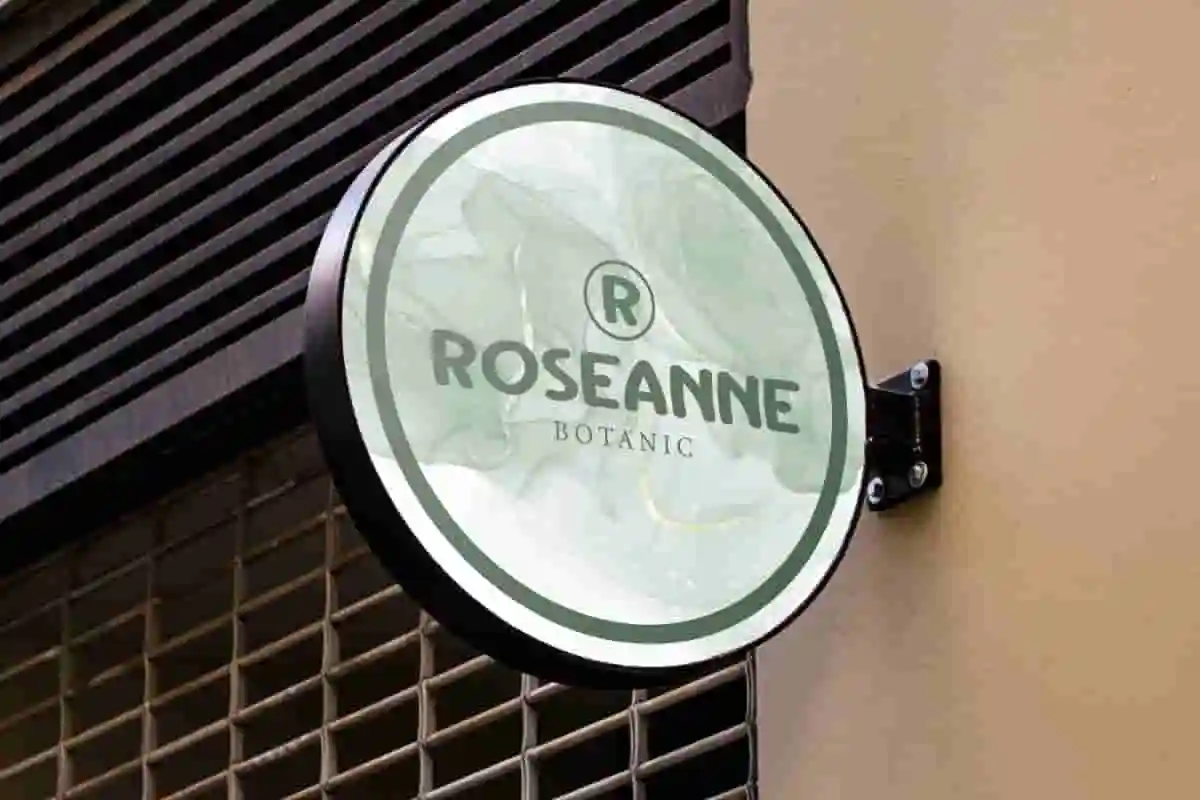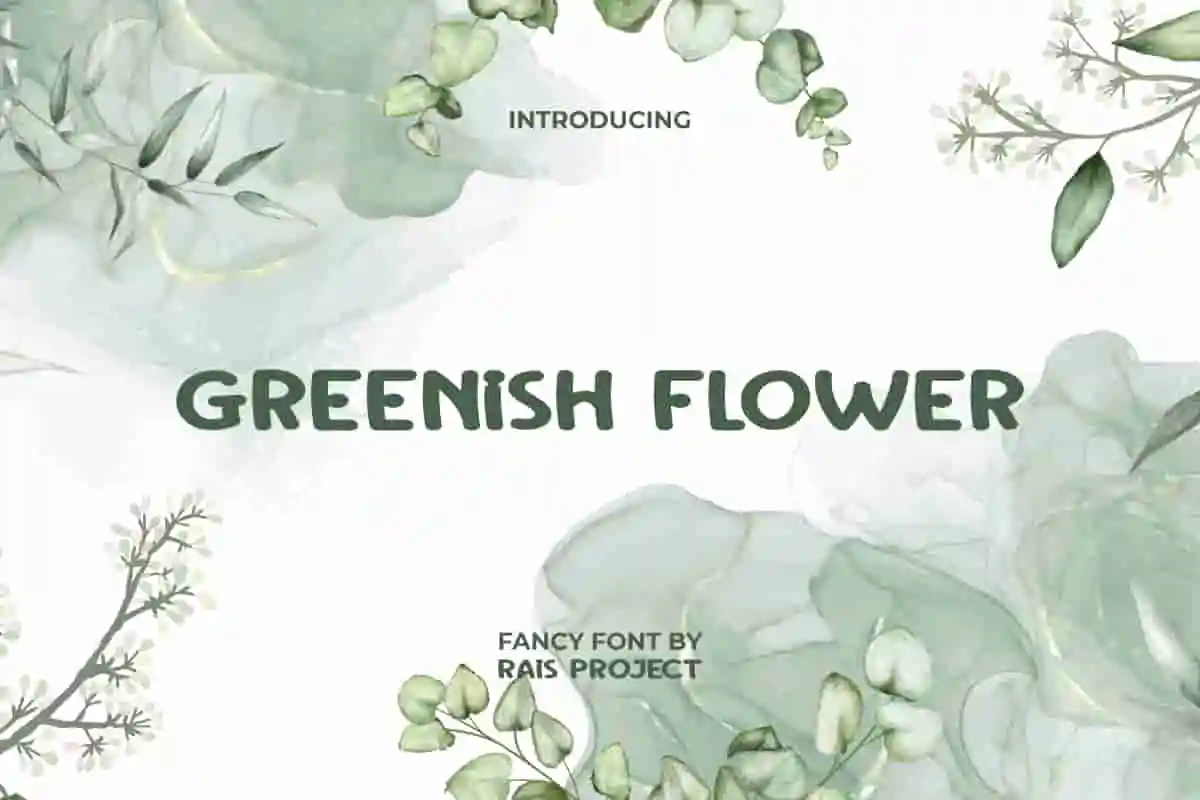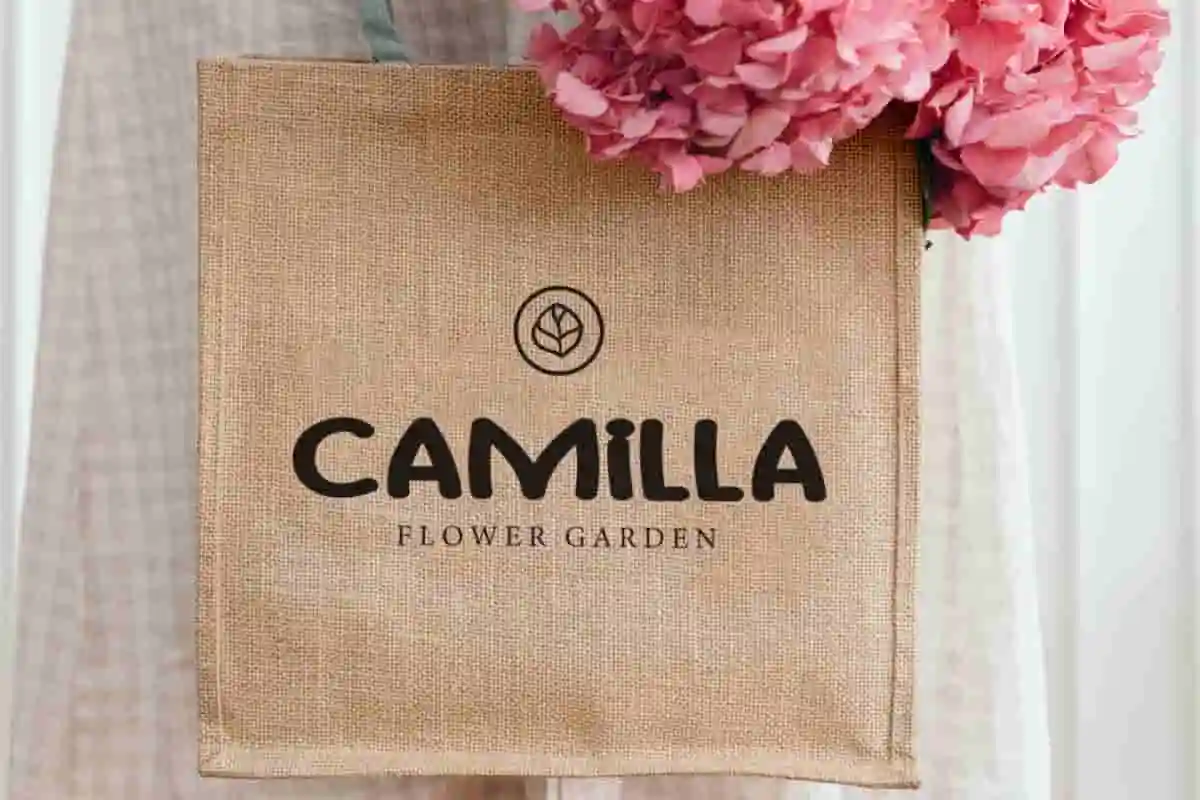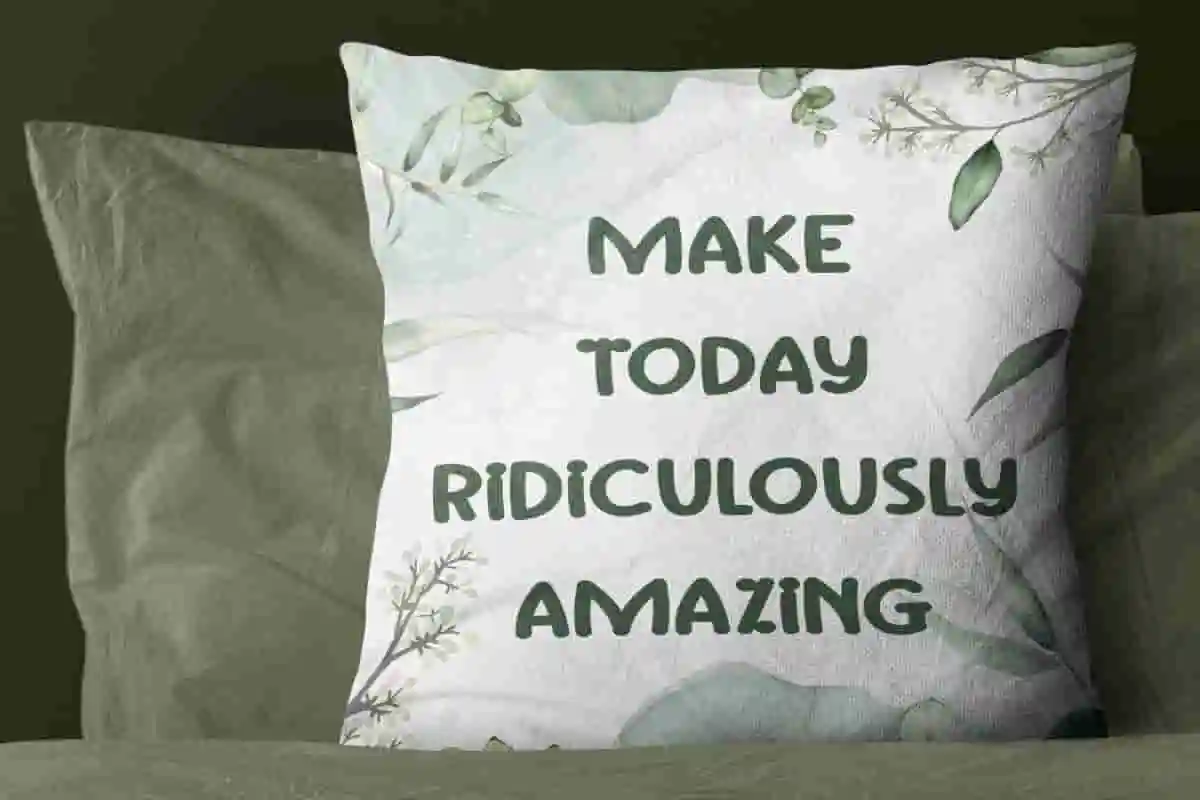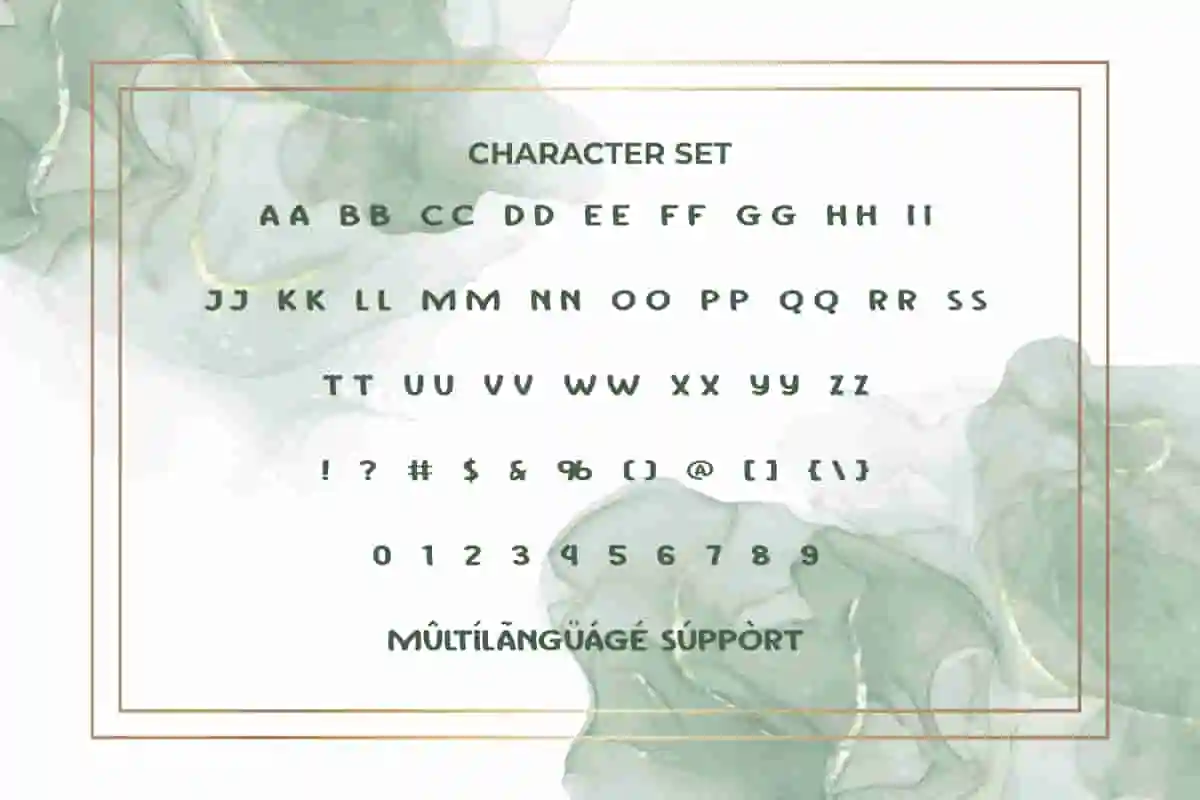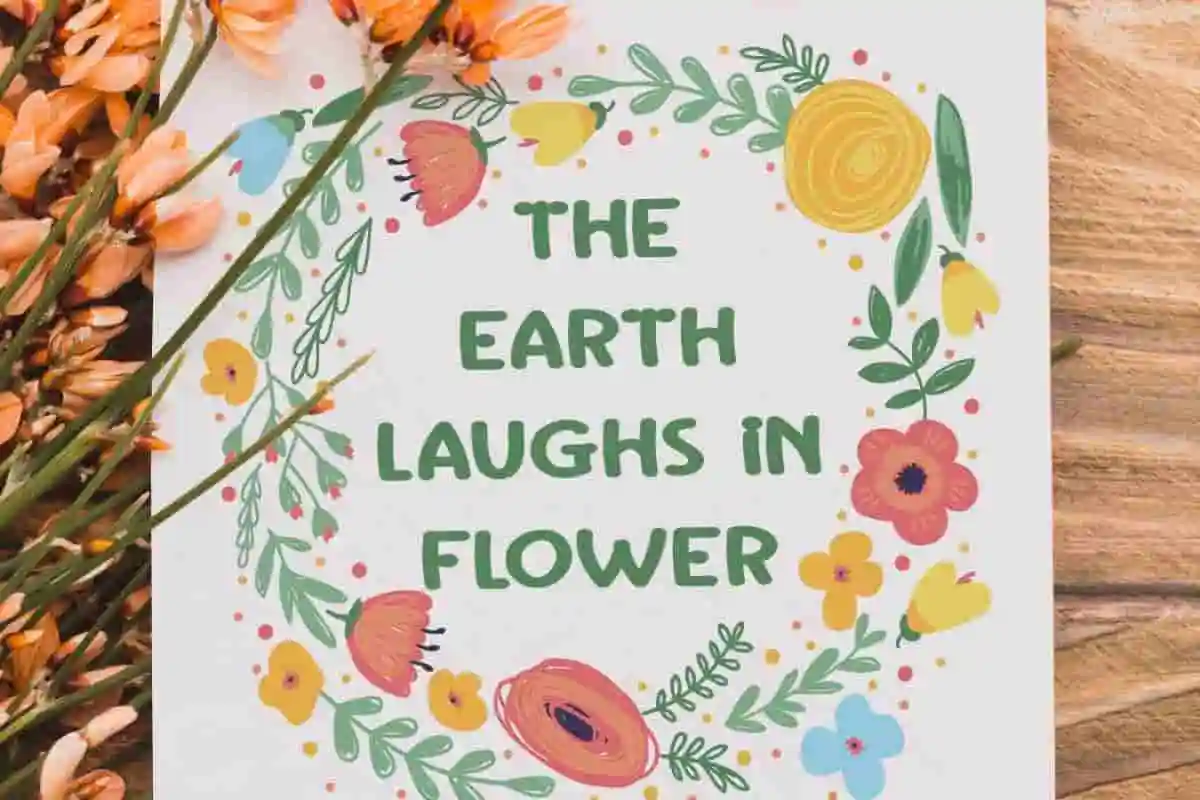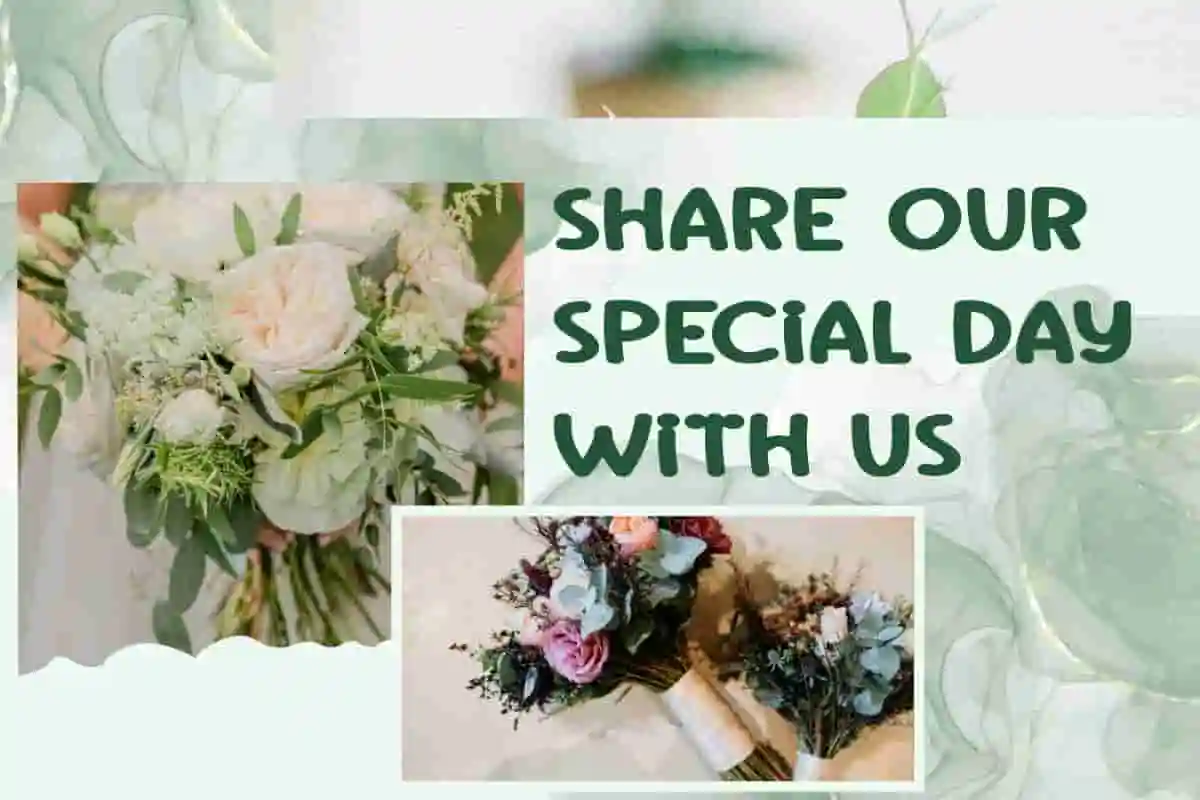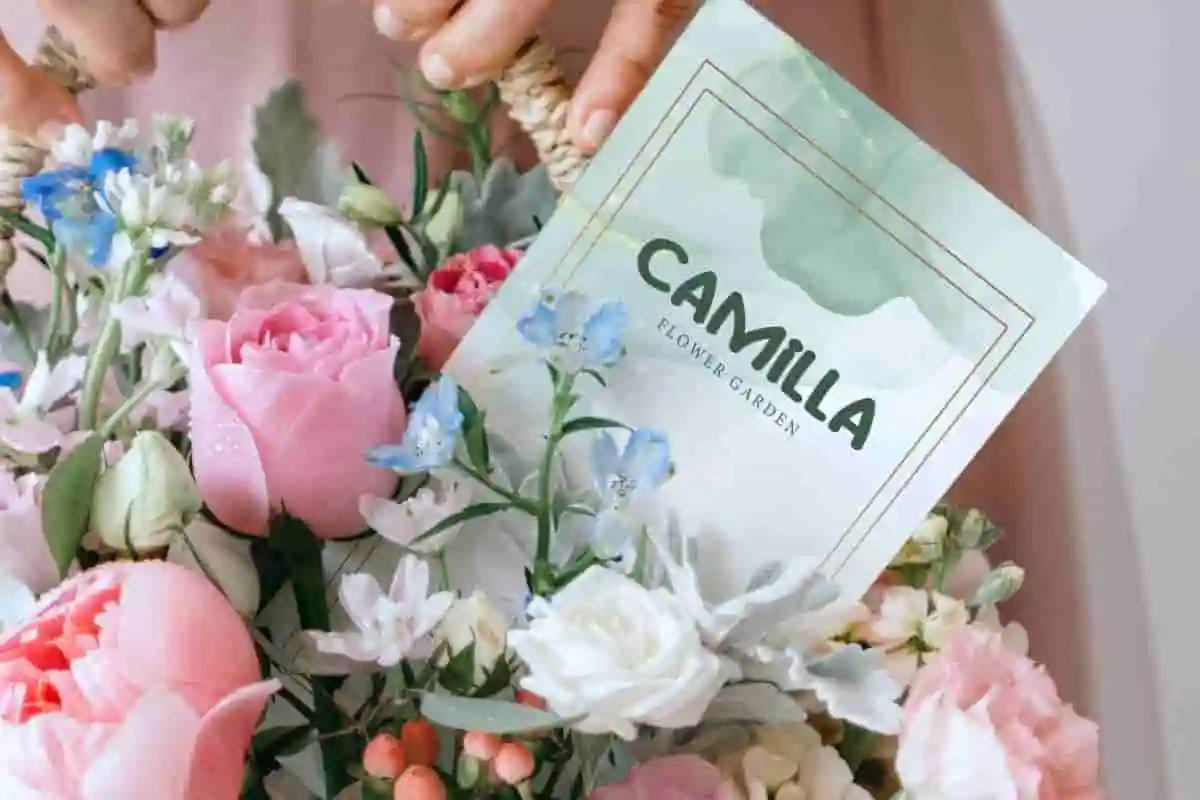
Greenish Flower Font
Greenish Flower Font is a cute display font, designed by Rais Project. Kids will love any designs using this font and will never get tired of looking at them. Use this font right now and see how adorable it is!
Greenish Flower Font is adorable cartoon display font. This type of font is usually found in many goods and animations for children to look attractive while at the same time enabling them to learn. It will be good for many design, such as greeting or thank you card, poster, custom design, web, signage, product packaging, label, cover, and many more!
Greenish Flower Font will amaze you with its charm, so it is suitable for many industries, such as kids stuff, fashion, comic, cartoon movie, cafe, florist, event or wedding organizer, etc. It has full set of uppercase letters, lowercase letters, numerals, and large range of punctuation. On the package you will get: